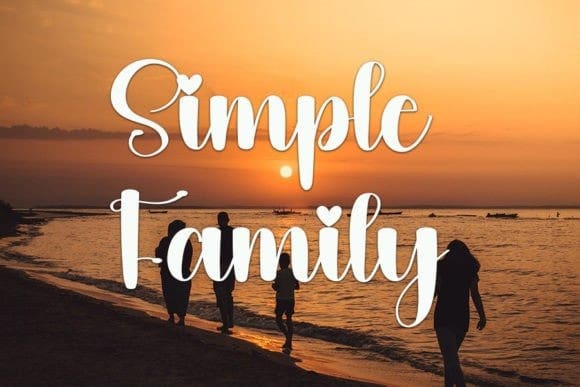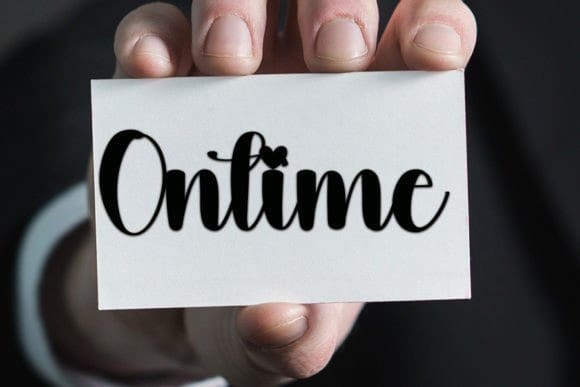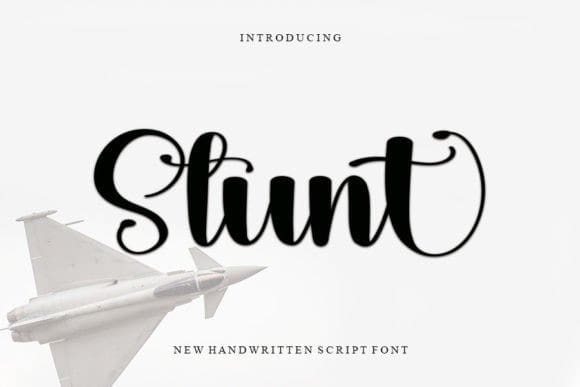
Stunt Script Font
Stunt Script Font is an enchanting handwritten font. This versatile typeface has a wide spectrum of applications ranging from greeting cards to headlines and is guaranteed to add a romantic feel to your next project.